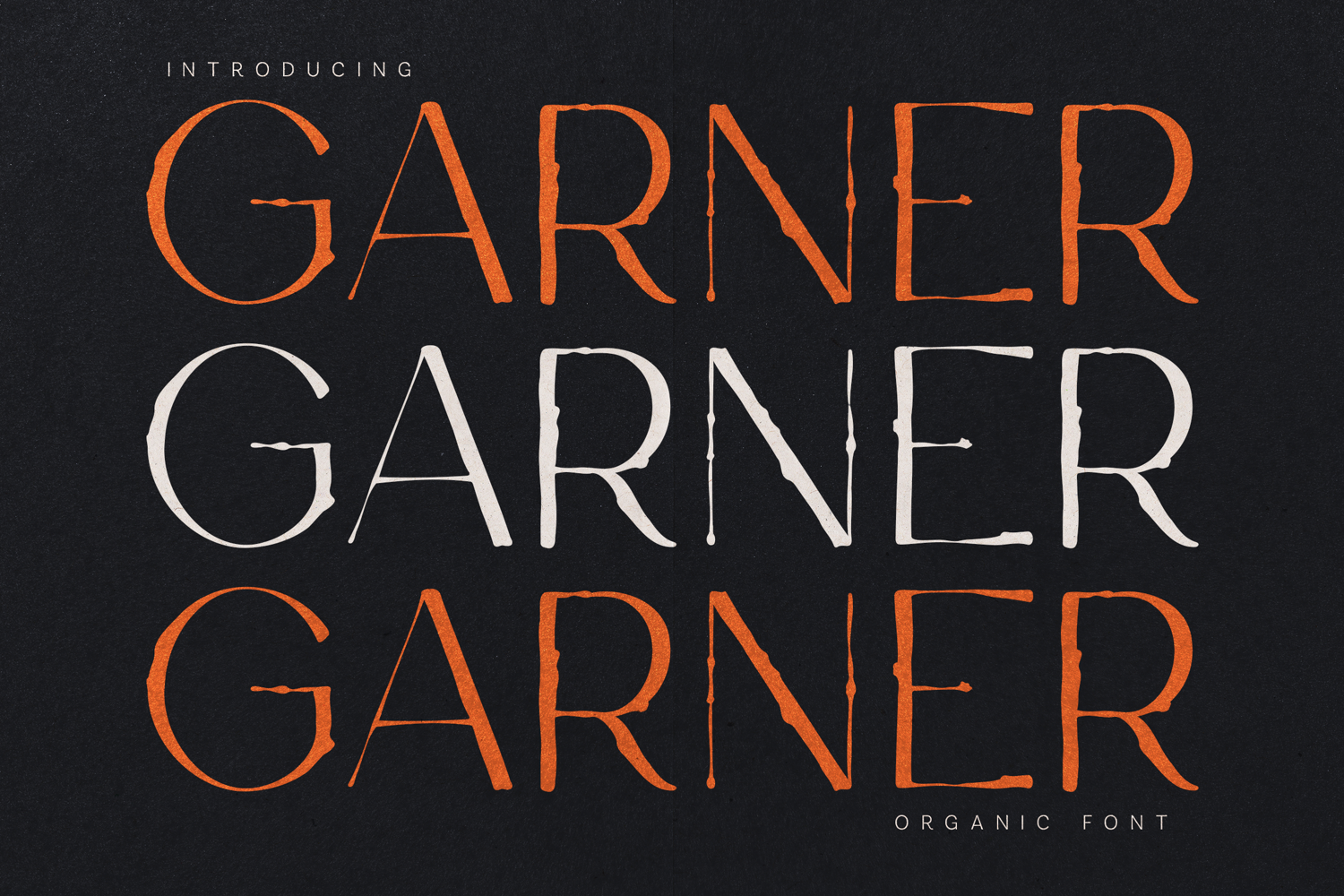
Garner Organic Handcrafted Serif Font
Garner is an expressive organic serif typeface inspired by natural textures and handcrafted lettering.
The font blends classic serif structure with subtle irregularities that create a warm, tactile appearance. Each letter carries a slightly imperfect edge, giving the typeface an authentic handmade character while still maintaining readability and balance.
Garner works beautifully in projects that need a natural, artistic, or human touch. The organic texture makes it ideal for branding, packaging, editorial design, and creative projects where personality and craftsmanship are important.
Its elegant structure combined with handcrafted detail allows Garner to feel both refined and organic, making it versatile for modern design while still maintaining a timeless aesthetic.
Perfect For• Organic branding
• Artisan products
• Packaging design
• Editorial layouts
• Book covers
• Posters
• Boutique brands
• Creative logos
• Organic textured style
• Handcrafted serif structure